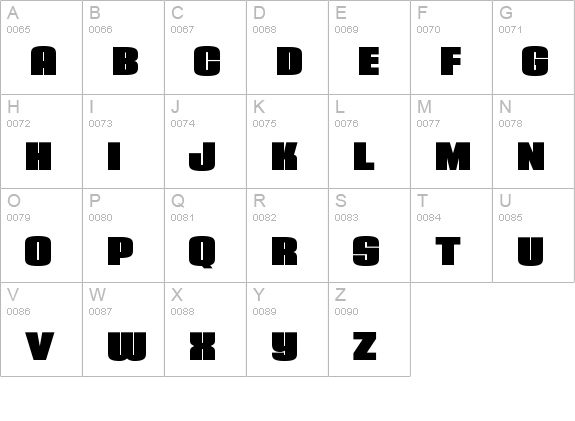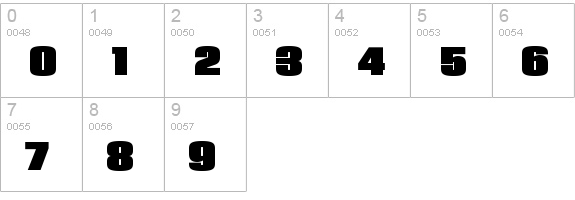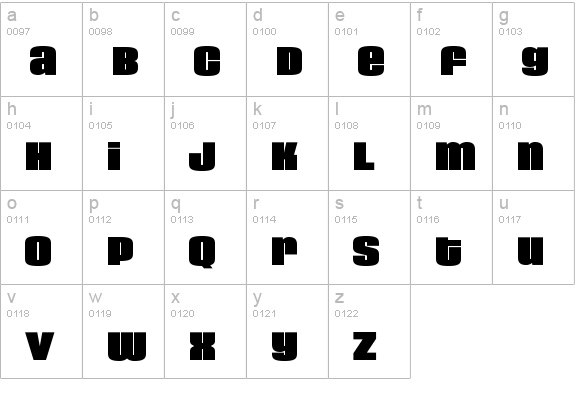
HouseGothicHG23Ext BLACK is a maximum-weight, dramatic variant in the HouseGothicHG23Ext typeface family \xE2\x80\x94 well suited to maximum-impact headlines, posters, and packaging.
HouseGothicHG23Ext BLACK font is a bold and striking typeface that exudes a sense of strength and modernity. Its sharp edges and sleek design make it perfect for creating eye-catching headlines and titles. The font's bold presence commands attention and adds a touch of sophistication to any project. And the best part? HouseGothicHG23Ext BLACK font is available for free download at FontsMarket.com. This means you can easily add this stylish font to your collection without having to spend a penny. So why wait? Download HouseGothicHG23Ext BLACK font today and elevate your design projects with its powerful and distinctive aesthetic.